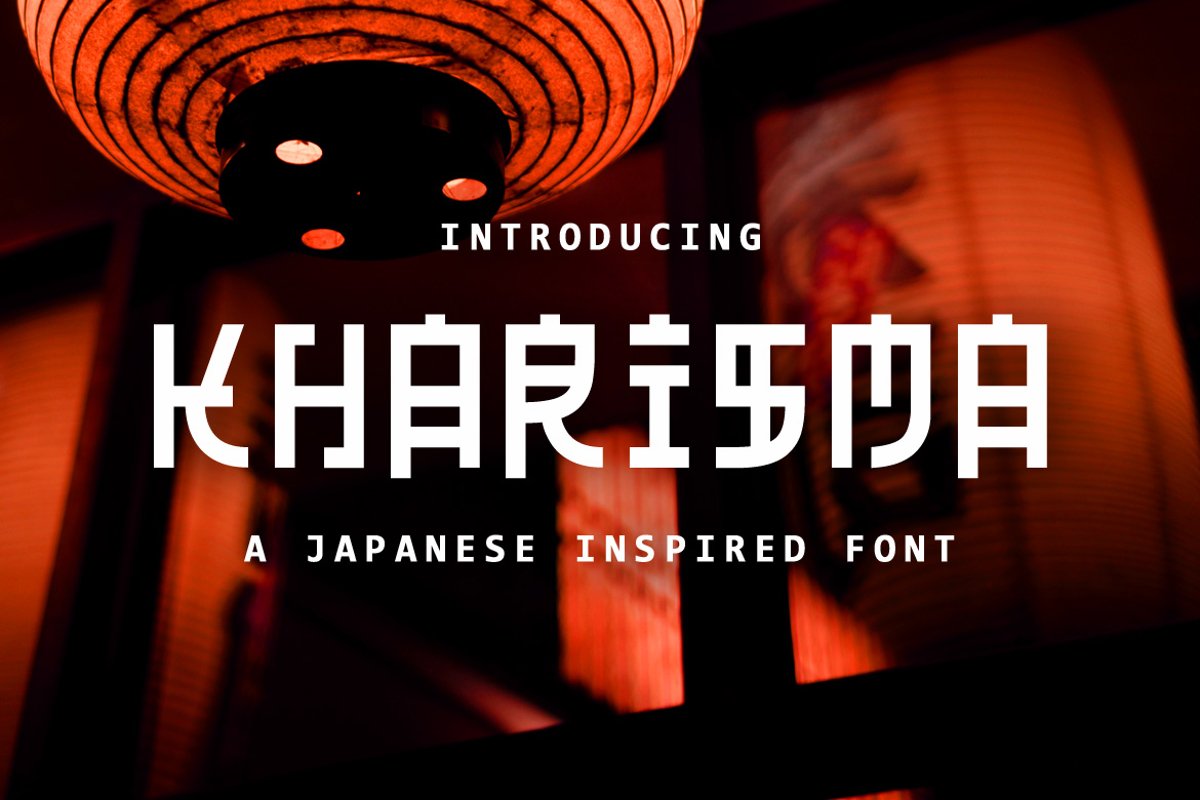
Kharisma - Japanese Inspired
Kharisma
Kharisma is a Japanese inspired display font that is suitable for use on any media and your project purposes such as headline text, album cover, magazine, headline text, book cover, children t-shirt design, promotion, and much other design projects that need JAPANESE feel.